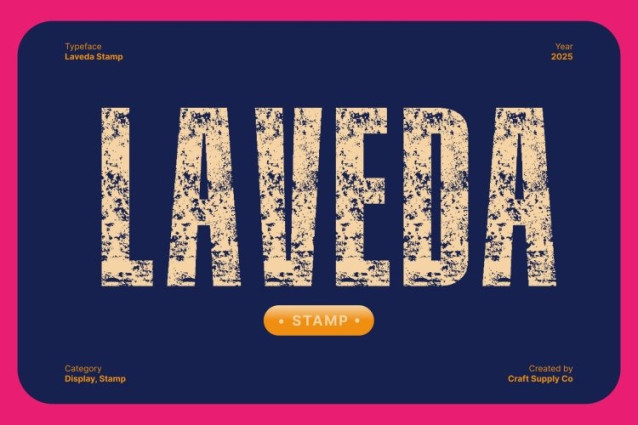
Laveda Stamp Font
Laveda Stamp Font This is an action-movie display font engineered to deliver raw power, high tension, and visual impact. Designed with condensed shapes, bold proportions, and sharp, slicing cuts, this typeface immediately communicates speed and intensity. Every letter feels like it’s in motion perfect for titles that need to hit hard, stand out, and command attention. The added stamp effect introduces rugged texture and a worn cinematic feel, combining modern adrenaline with a touch of vintage grit.
Sharp Condensed Forms for Maximum Impact
Built with tight spacing and tall, compressed silhouettes, this font amplifies energy and urgency. Its angular cuts and aggressive forms mimic action-film aesthetics, giving every word a bold, unstoppable presence. These features make it ideal for fast-paced, dramatic compositions where clarity and tension work hand in hand.
Vintage Stamp Texture for Raw Authenticity
The signature stamp effect adds character and grit, making the font feel weathered, tactile, and authentically bold. This effect introduces a retro-industrial charm without sacrificing its modern cinematic edge, giving your designs a dramatic yet timeless look.
Perfect for Trailers, Posters, and Gaming Titles
If your project needs adrenaline, power, and a touch of vintage drama, this font is the perfect choice. It transforms ordinary titles into bold visual statements—fast, fierce, and unforgettable.